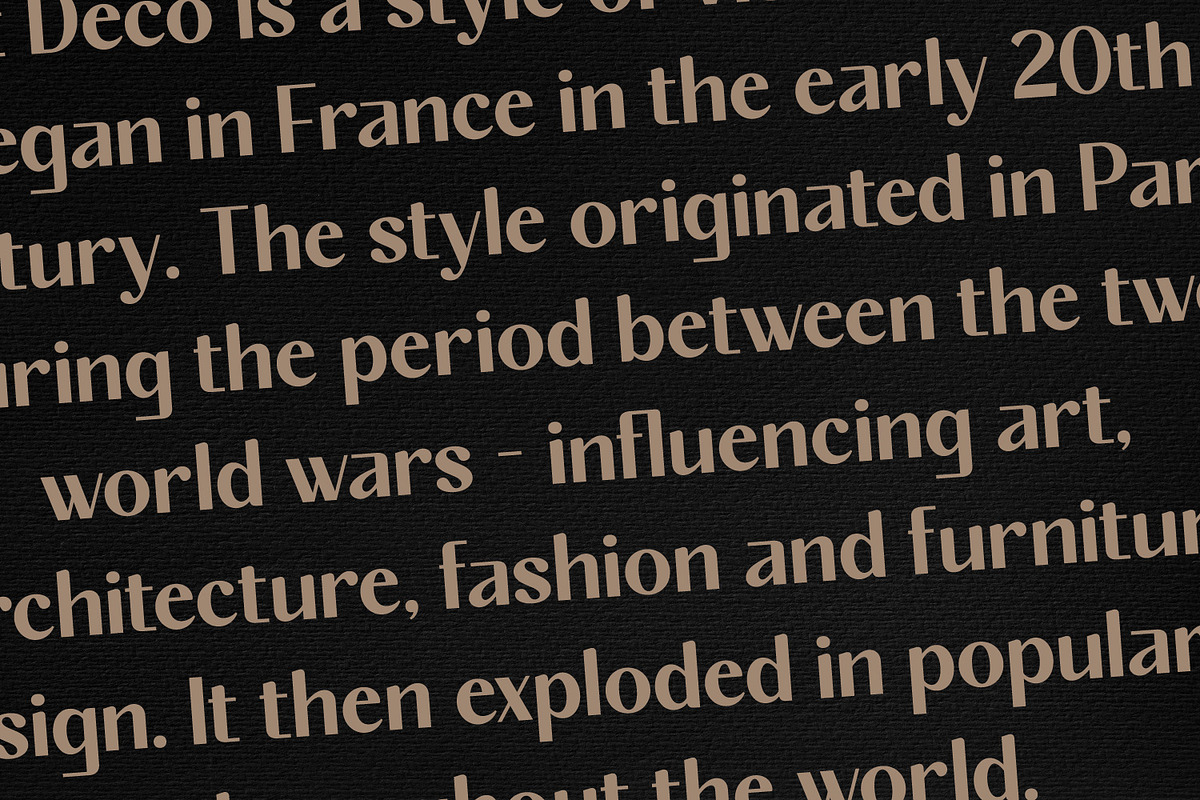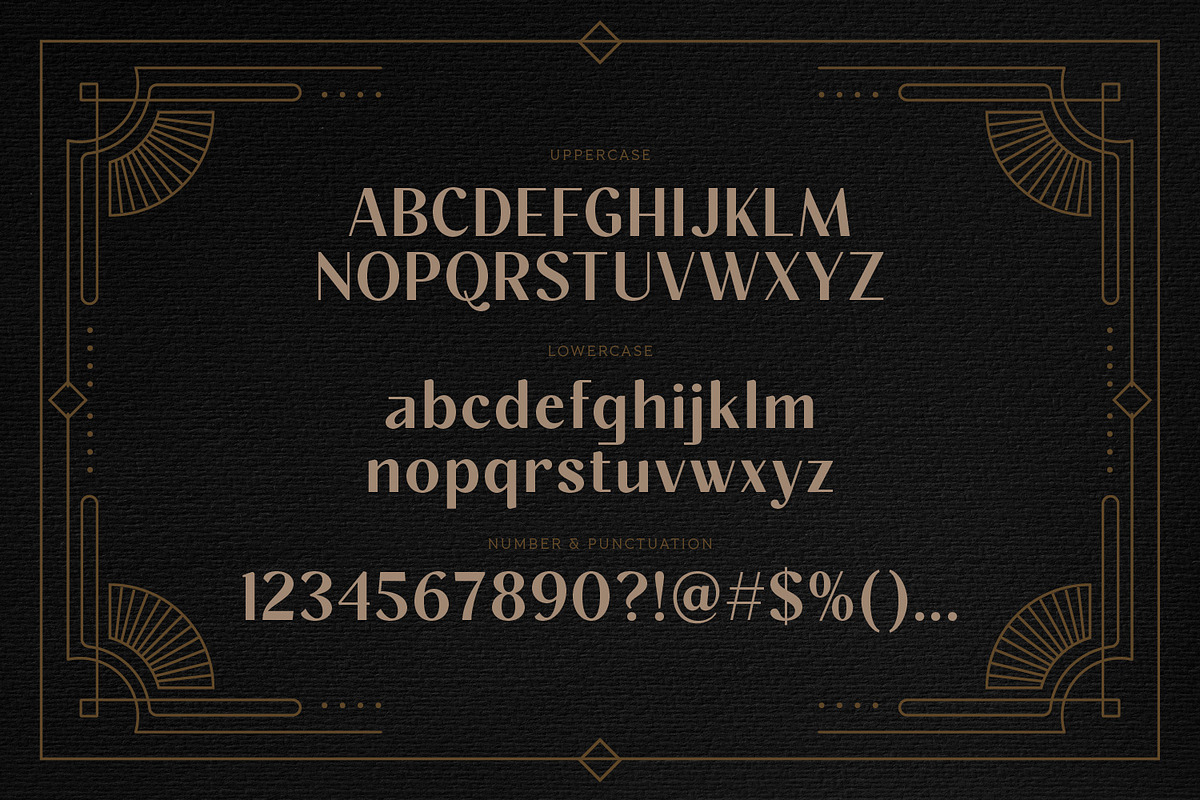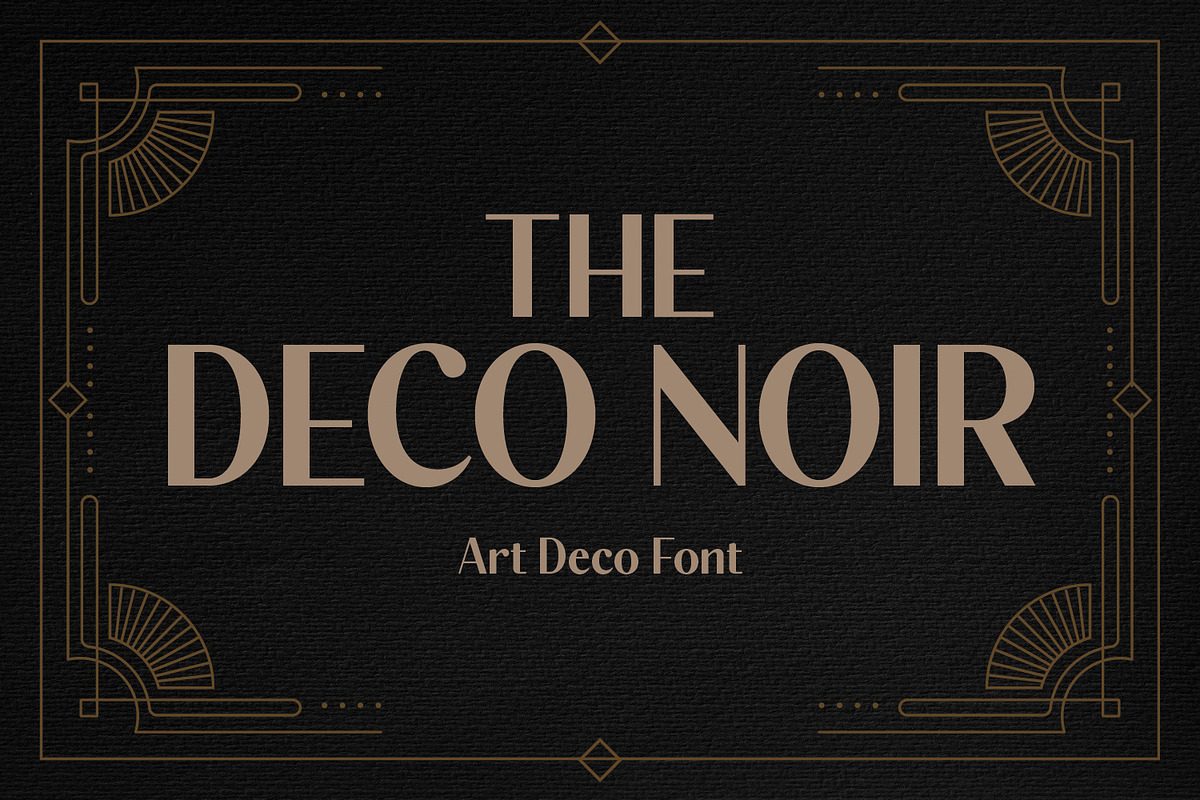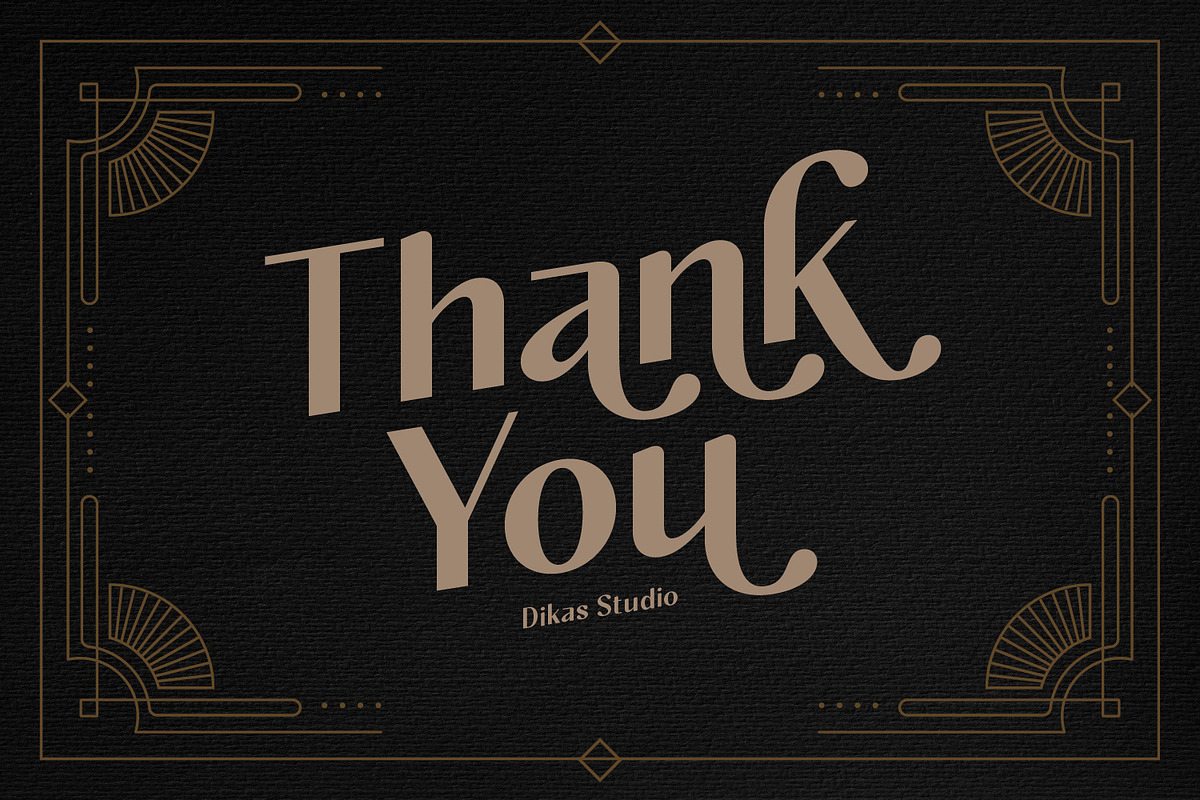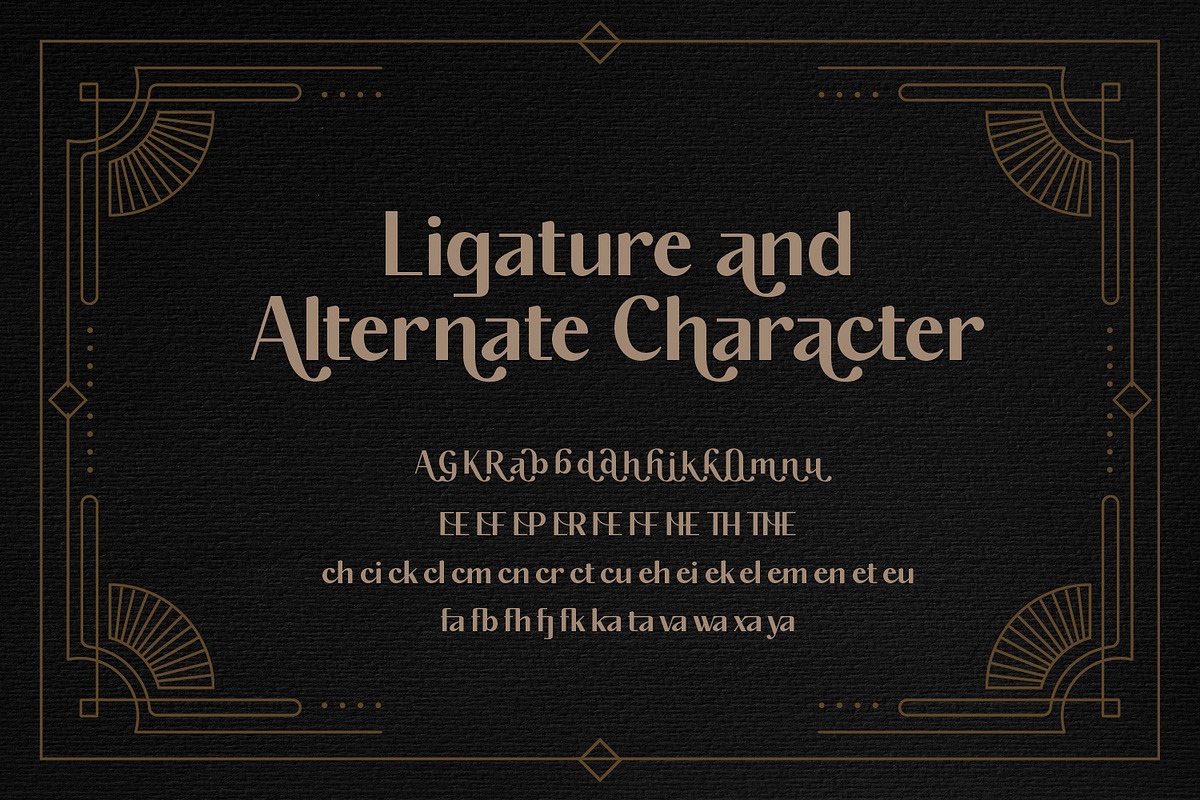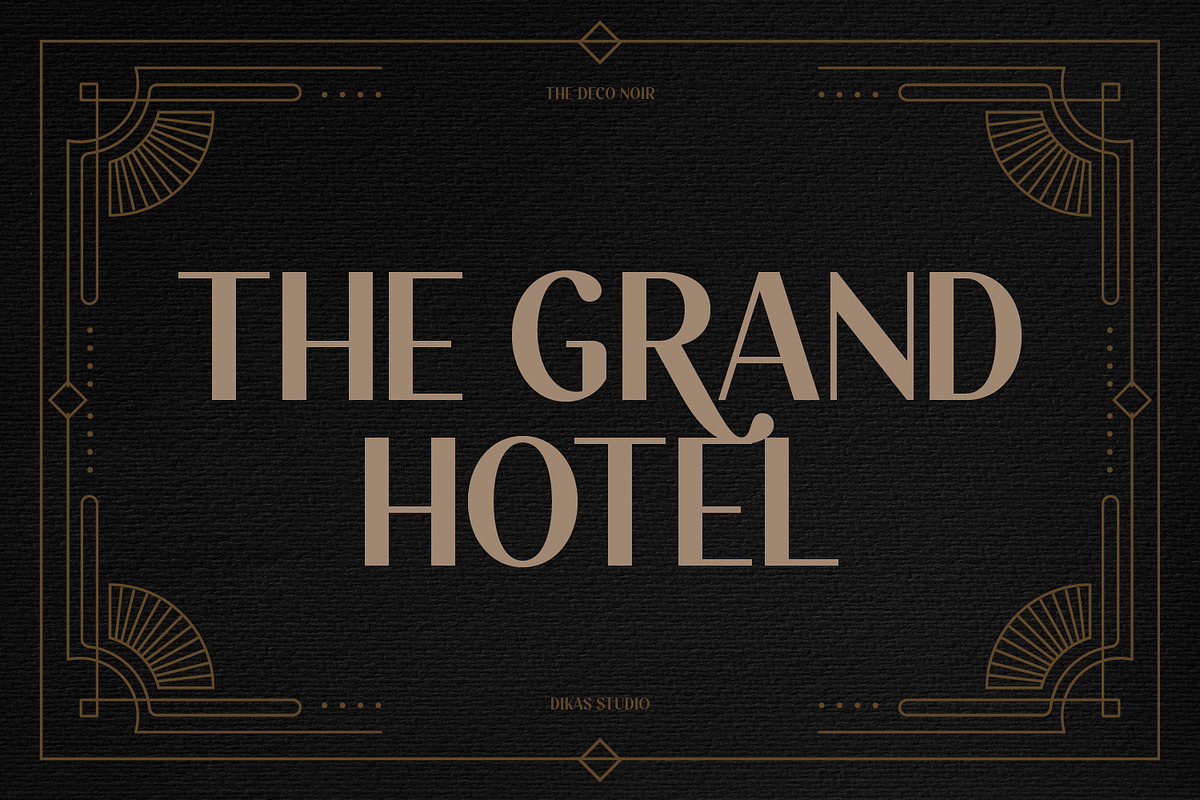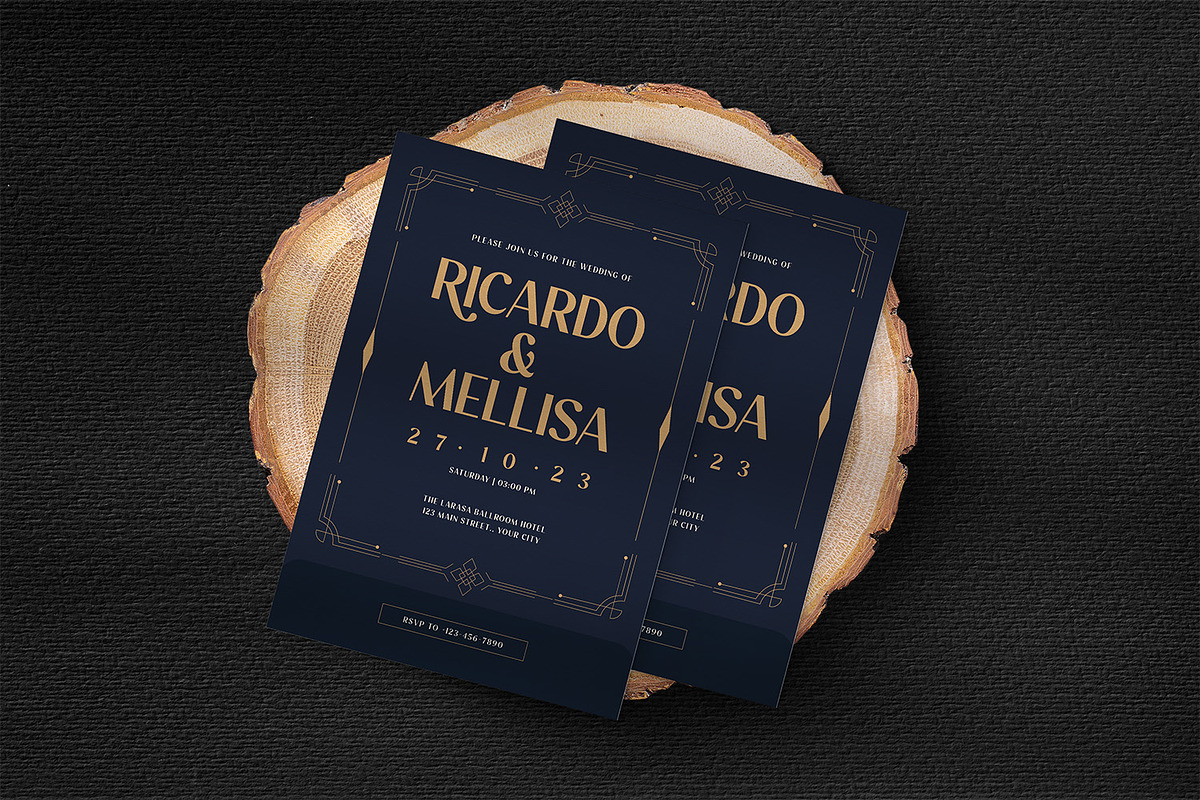
The Deco Noir - Art Deco Typeface
The Deco Noir is a sophisticated sans-serif font with a touch of classic Art Deco elegance. Its refined design makes it perfect for vintage, fashion, and Art Deco-themed projects. Whether you’re creating luxurious branding, stylish posters, or elegant invitations, The Deco Noir adds a timeless, glamorous touch to your work.
All Caps Character
Punctuation & Number
Multilingual Language